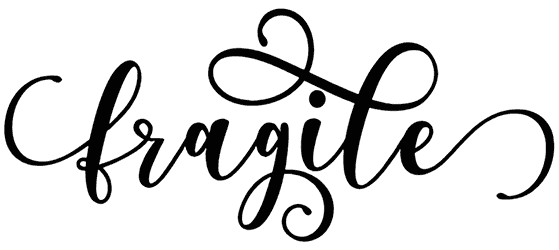
Fragile Font
This calligraphy font that we are introducing has a stunning design, but it’s very difficult to read! The hand-drawn characters and their attractive swashes are very stylish and give your typography a feminine feel. Besi…
This calligraphy font that we are introducing has a stunning design, but it’s very difficult to read! The hand-drawn characters and their attractive swashes are very stylish and give your typography a feminine feel.
Besides the adorable features, it’s friendly and looks modern, but it doesn’t contain capitalized letters in the set of letterforms. Fragile font fits very well in invitations, wedding cards, cosmetics, especially makeup products, or wherever you wish for gorgeous joint handwriting!